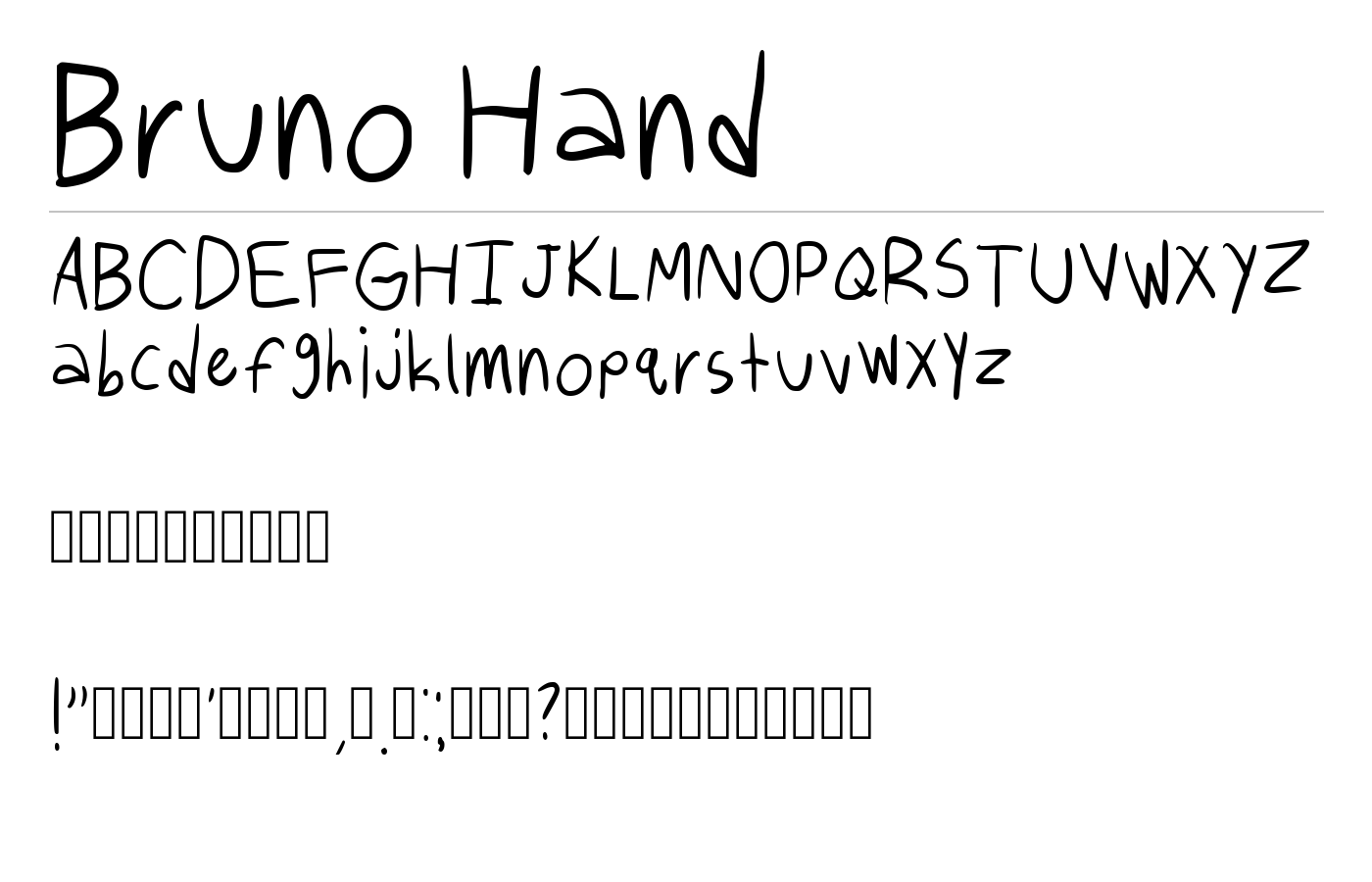
Bruno Hand is a casual, handwritten sans serif font with a playful and friendly feel. Its tall, narrow letters feature irregular strokes and a slightly uneven baseline, giving it an approachable, informal character ideal for personal projects, children’s materials, or creative branding. This font works well for headlines, invitations, and any design that benefits from a warm, human touch.
Bruno Hand Font
About Bruno Hand Font